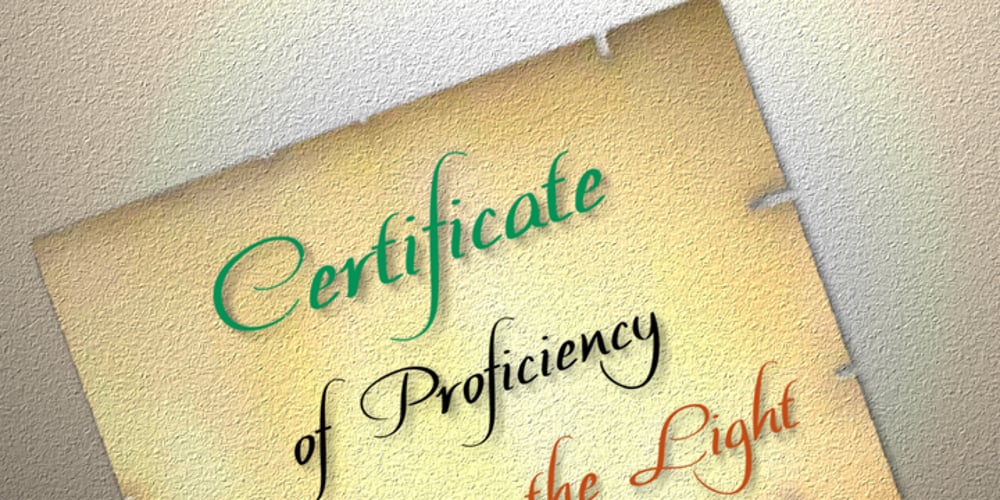
Certificate
Certificate font
Certificate Font Family was designed by Anton Scholtz and published by Scholtz Fonts. Certificate contains 1 styles and family package options. Elegant, fluid and romantic are but a few of the words that describe this beautiful font. Certificate is a perfect choice for awards, wedding invitations, greeting cards – in fact any products for which a sophisticated, contemporary yet formal look is sought. Certificate was designed for situations that require: – a classical, “award” like font (for certificates, invitations, formal notices etc); – a very legible font (particularly important for invitations to events such as weddings and formal occasions where details of the occasion are very important and should not be mis-read); Certificate is fully professional, carefully letterspaced and kerned. All upper and lower case characters, punctuation, numerals and accented characters are present.